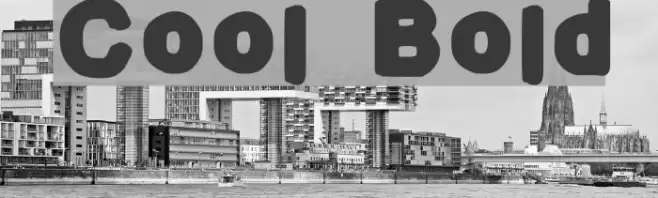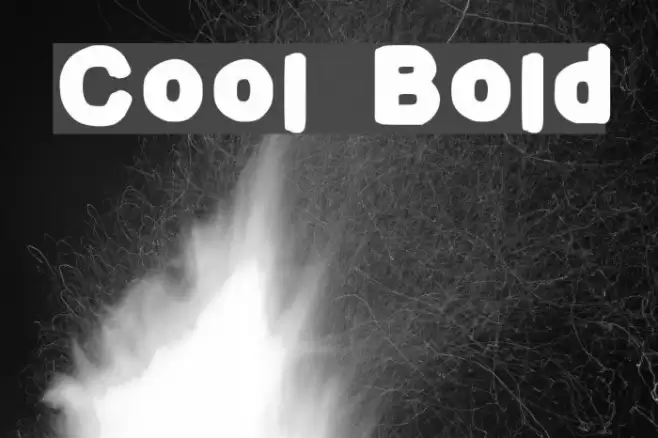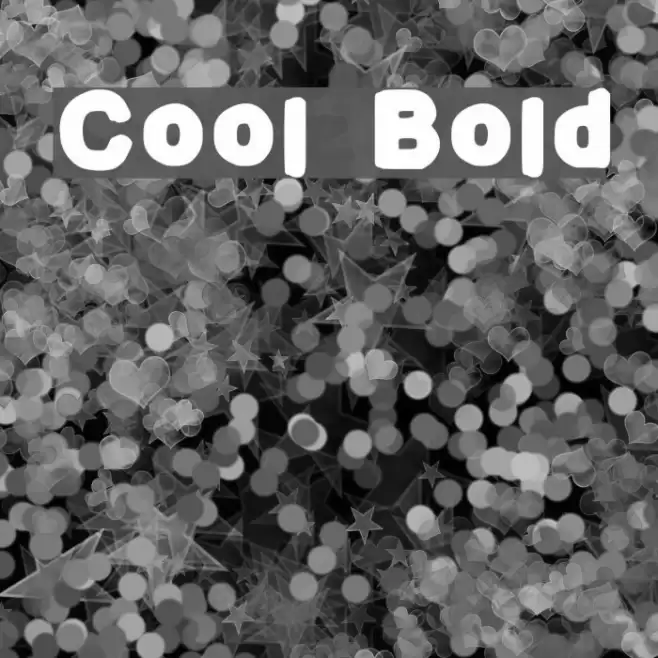
Cool Bold Font
Cool Bold Description
This font features bold, rounded characters with a playful and friendly appearance. The letters are thick and substantial, giving a strong visual impact. The rounded edges soften the overall look, making it approachable and suitable for casual or fun design projects. The uniform thickness of the strokes contributes to a cohesive and balanced aesthetic. The numerals and special characters maintain the same bold and rounded style, ensuring consistency across all elements. This font is ideal for projects that require a bold statement while maintaining a light-hearted tone.
A bold, rounded font with a playful and friendly style from Uncategorized fonts.
- Proposed Projects: Ideal for children's books, playful branding, posters, and social media graphics.
- Overall Style: Playful, Friendly